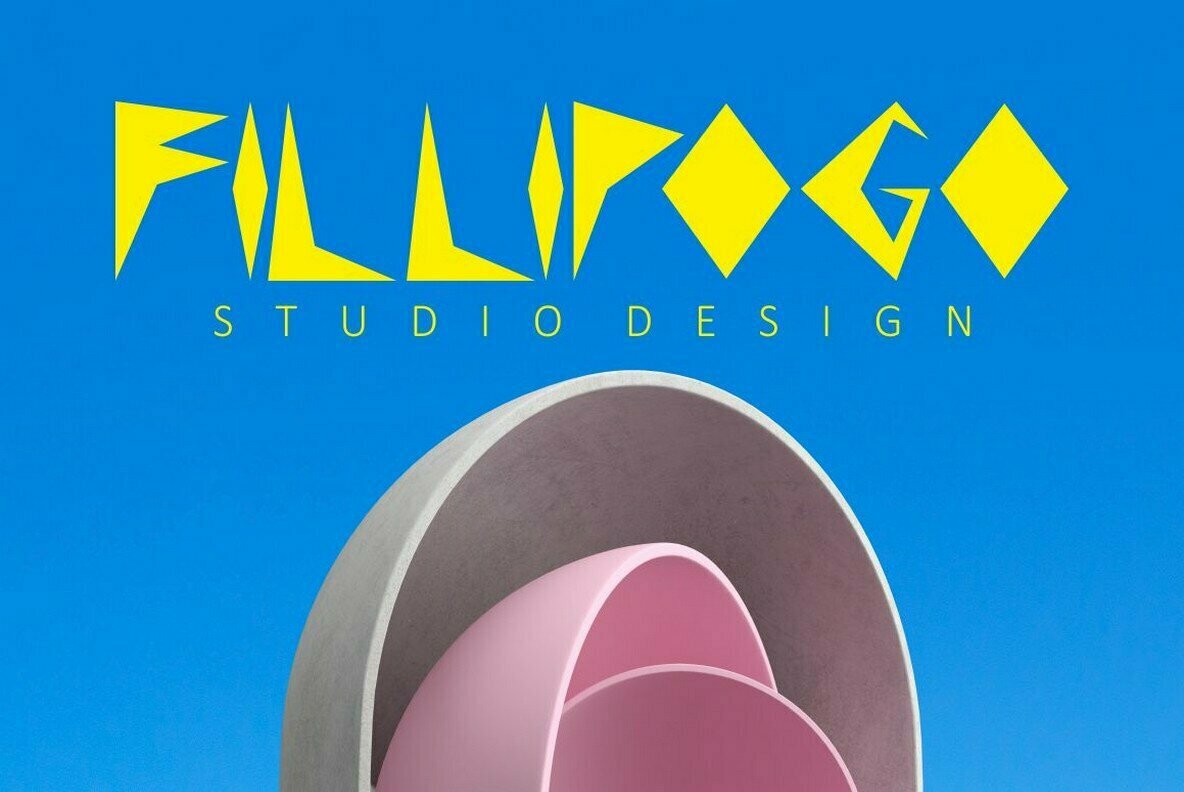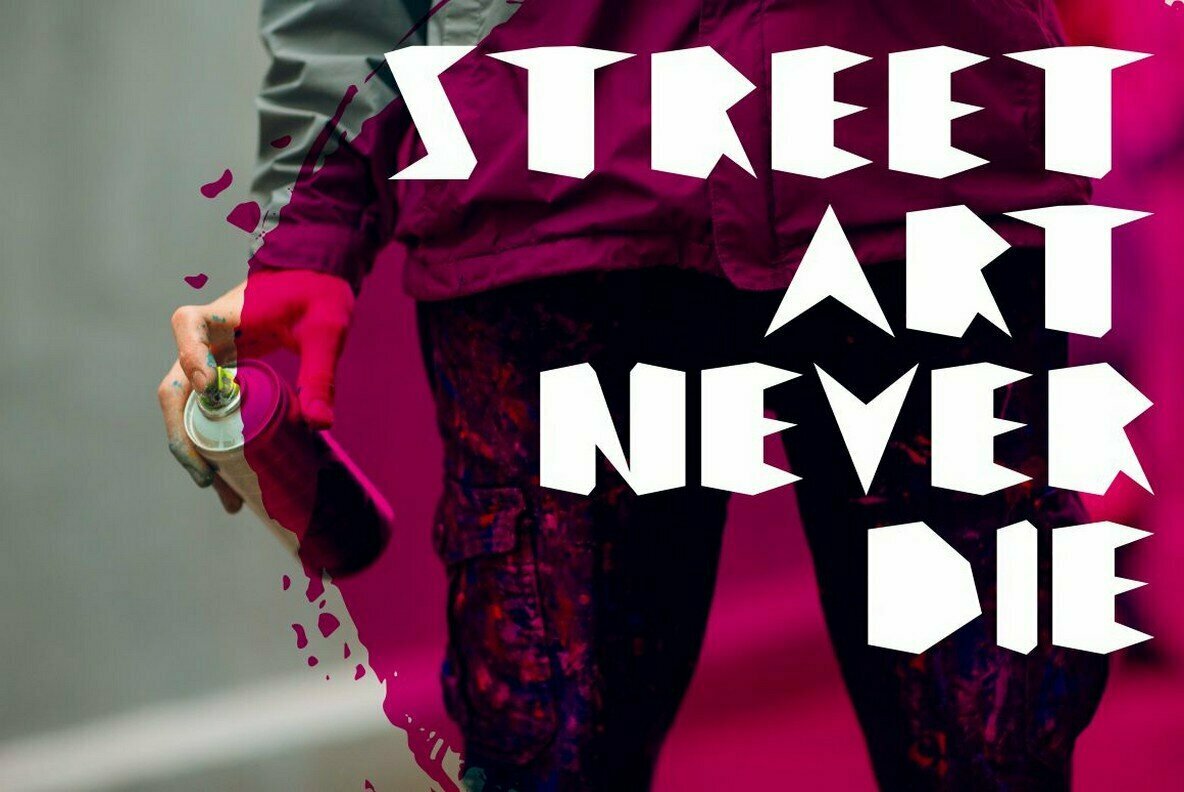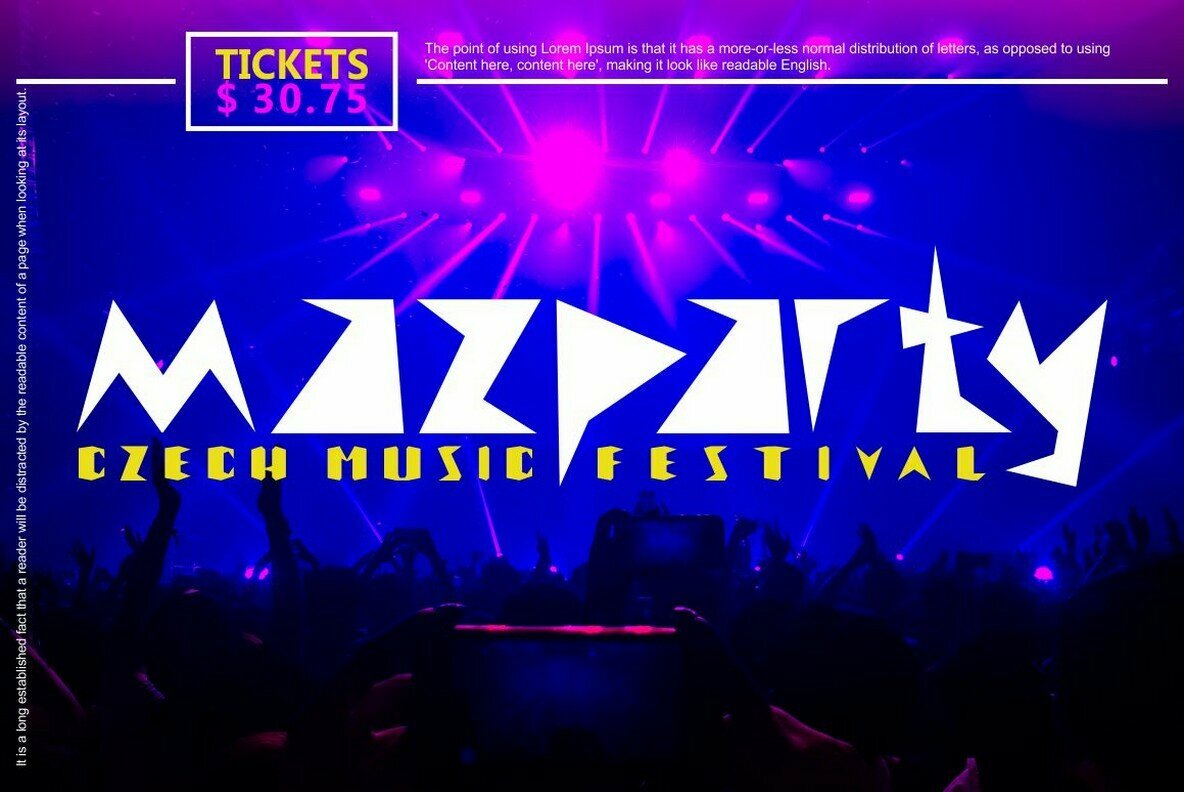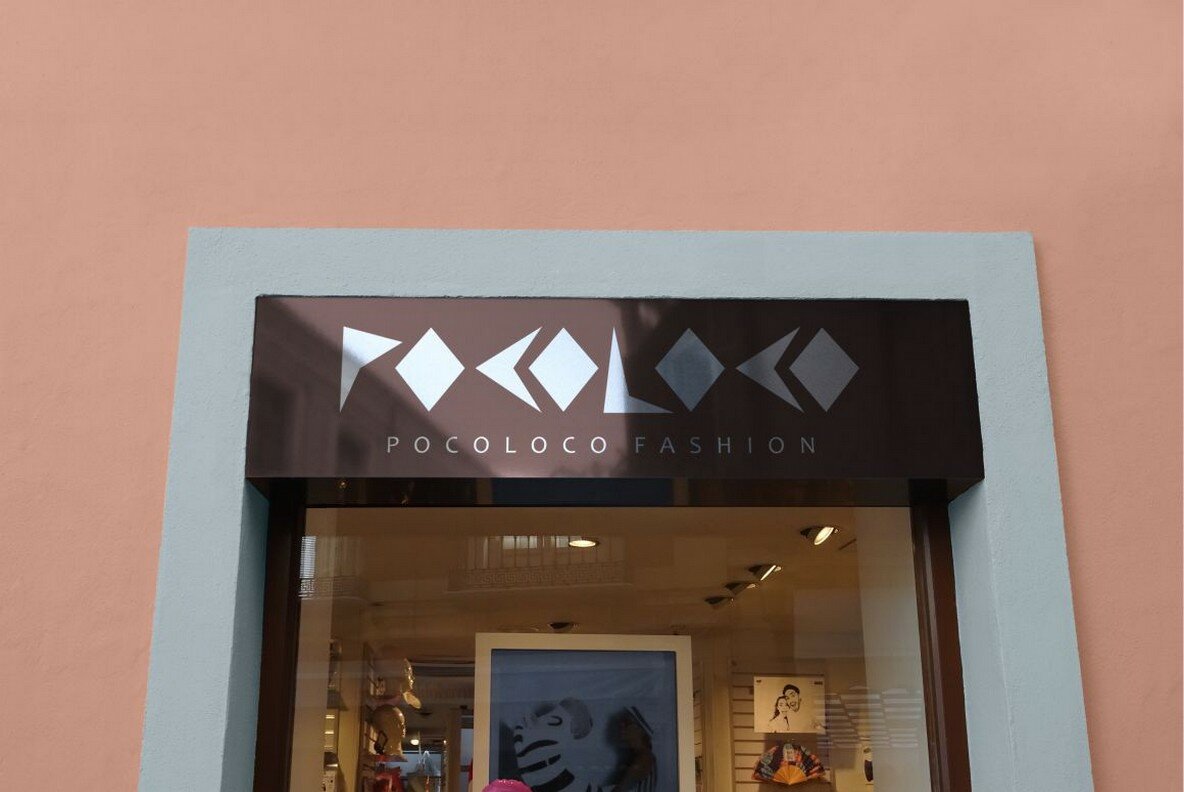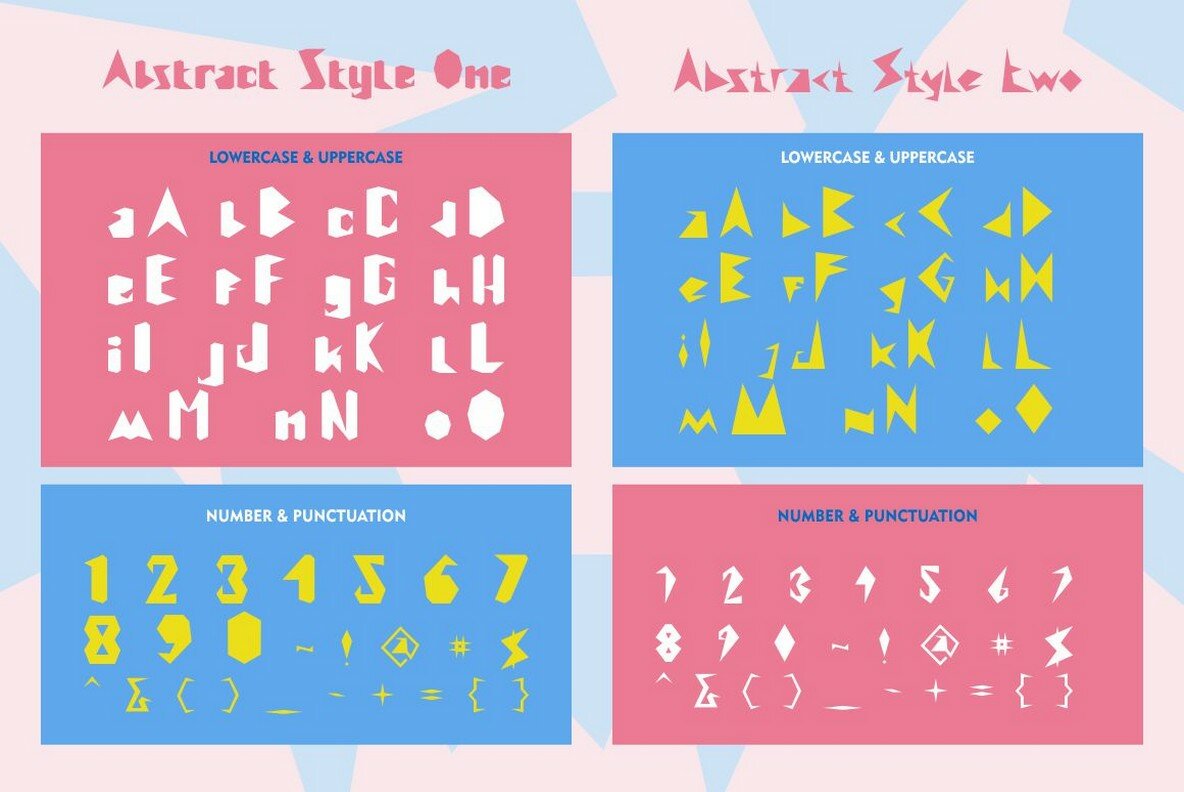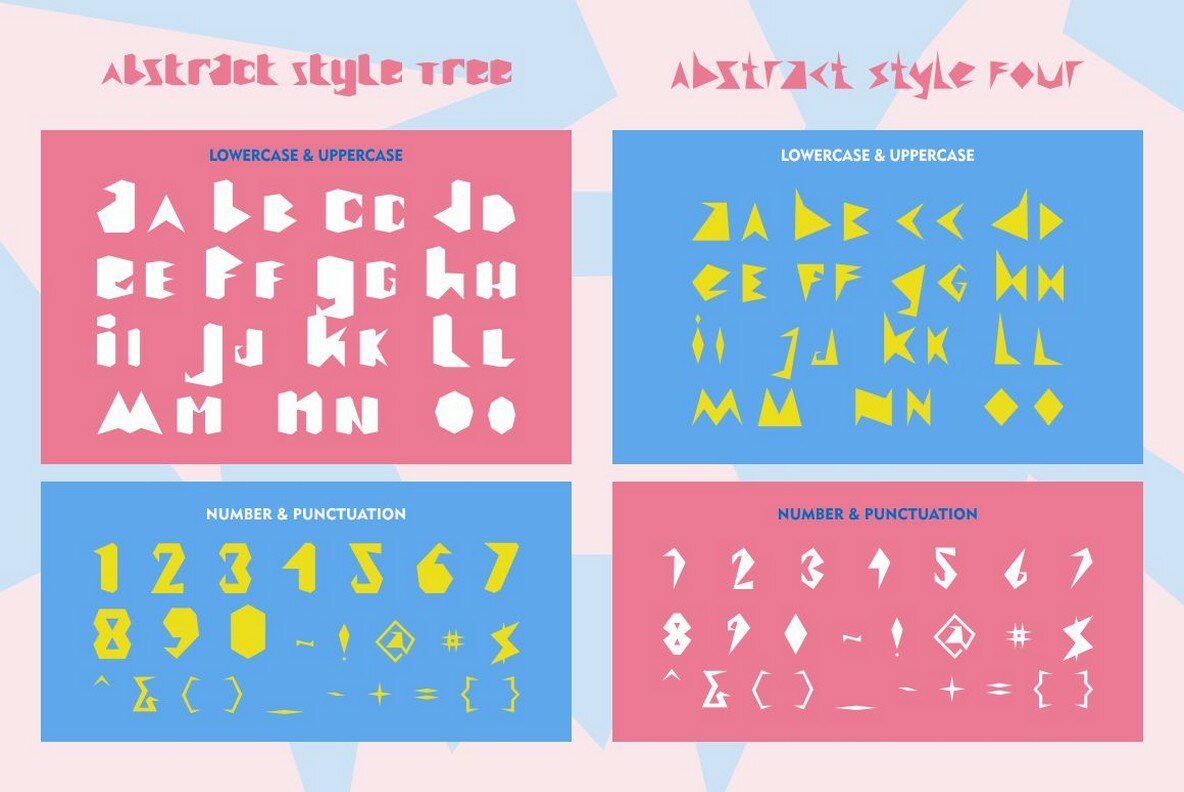
Abstract Style Font
Abstract Style is an avant-garde display font that stands out with its distinctive, irregular forms and sharp edges. Designed to capture attention, it perfectly suits diverse creative endeavors such as logos, titles, and headlines. With its unique character, Abstract Style lends an unpredictable yet cohesive aesthetic to any visual composition.Abstract Style: A Display Font With Irregular Flair